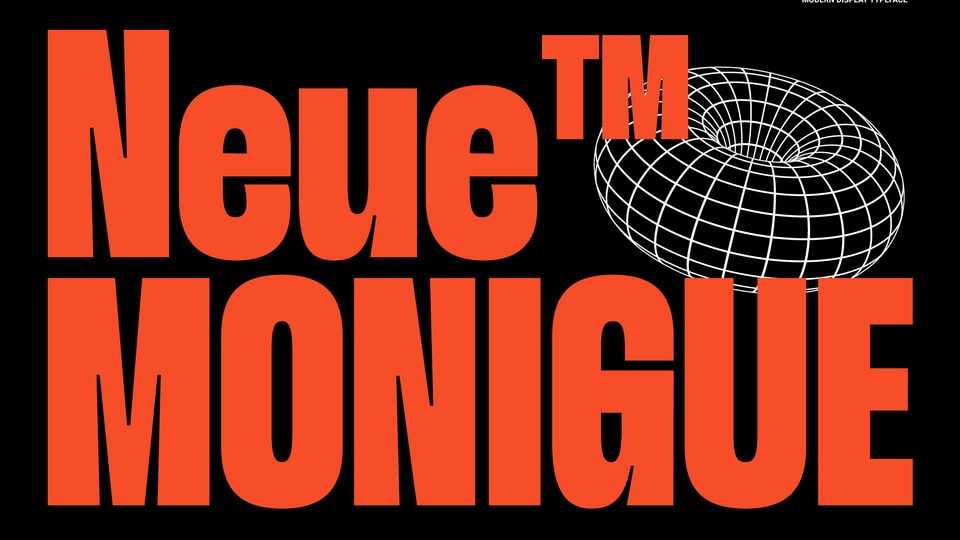
Download Monigue font, a bold and strong condensed typeface that’s here to make a statement. Drawing inspiration from the sleek modern designs of the 2000s, Monigue brings back that iconic vibe with a fresh twist